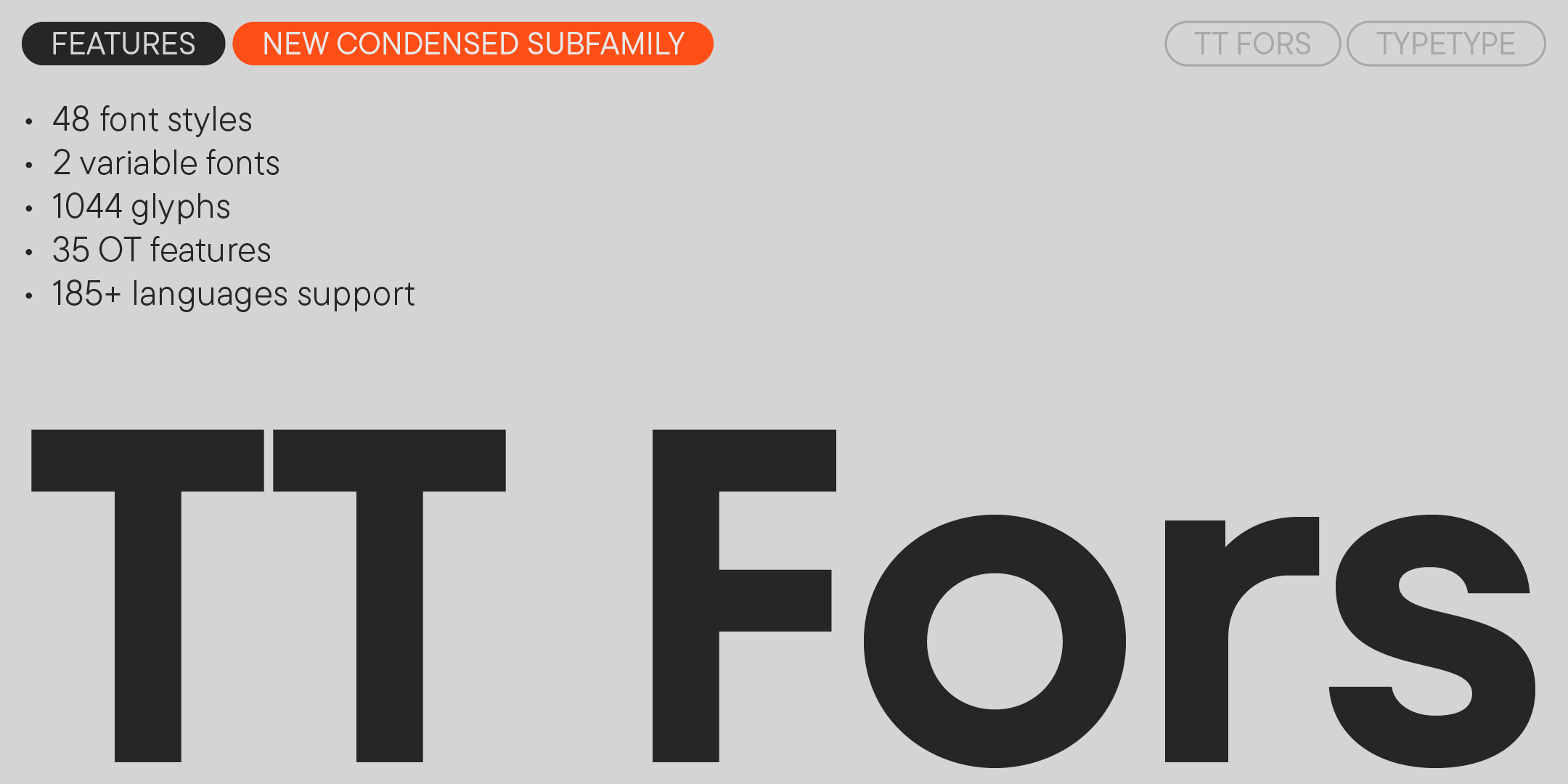
TT Fors Font is perfect for innovative tech branding, modern digital interfaces, progressive startup communications, contemporary web design, cutting-edge mobile applications, forward-thinking corporate identity, dynamic marketing campaigns, sleek product packaging, futuristic advertising materials, and any projects that require versatile typography with technical precision and modern sophistication.
What makes TT Fors Font exciting is its exceptional technical craftsmanship that represents the pinnacle of contemporary type design with meticulously engineered letterforms that perform flawlessly across all digital and print environments. This sophisticated typeface features precise geometric construction with subtle humanist refinements that ensure optimal readability while maintaining strong visual impact and modern character. The font's technical excellence makes it perfect for brands seeking to communicate innovation, reliability, and the cutting-edge quality that defines today's most successful technology companies.
TT Fors Font family includes comprehensive technical variations featuring thin, light, regular, medium, bold, and black weights. The font family also offers true italic versions with enhanced dynamics, along with condensed and extended variants that provide maximum flexibility for complex branding systems. Special features include advanced OpenType capabilities, extensive language support, and optimized spacing that ensures superior performance in both text and display applications.